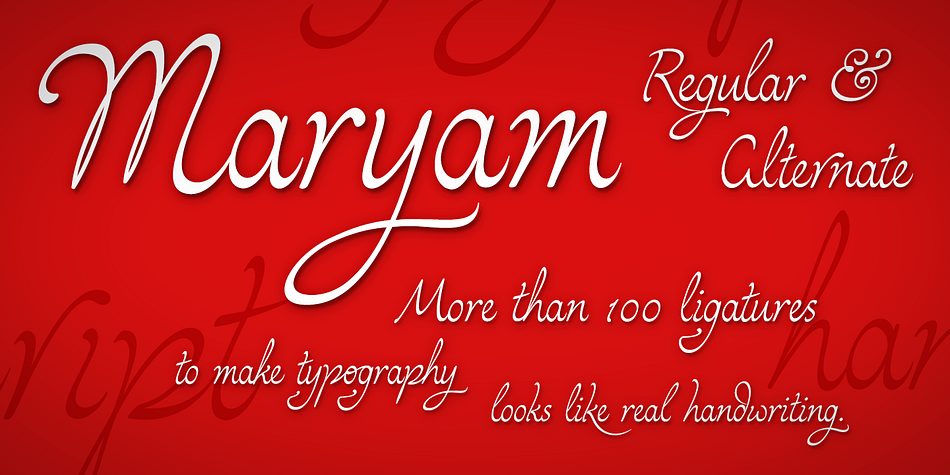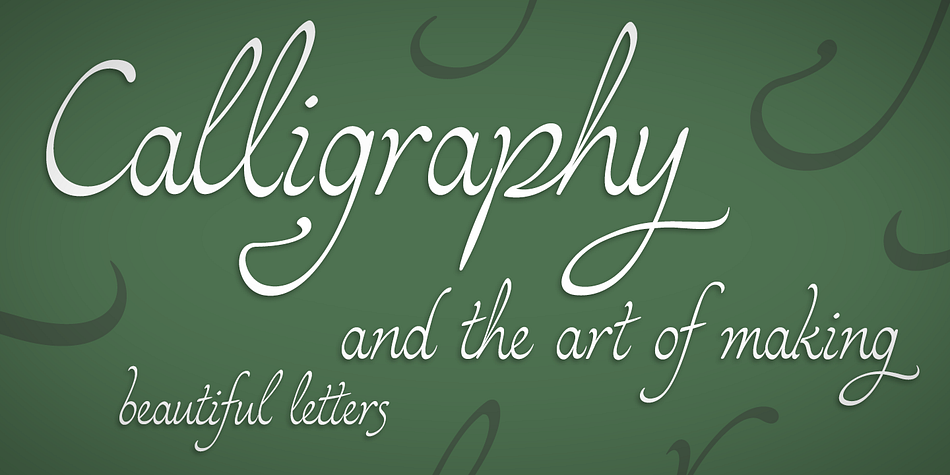
Maryam
Designed by Ricardo Esteves Gomes, Maryam is a script font family. This typeface has two styles and was published by Outras Fontes.
Maryam is a script type family designed by Ricardo Esteves. Because of moderate contrast, these fonts have ellegant and legible forms even in small x-height sizes. The family is comprised of 2 fonts: Maryam Regular and Maryam Alternate. There are more than 70 ligatures in each font, providing a lot of letterform variations that can make them look like real handwriting on a page. Useful for short texts that need a calligraphic feeling to catch the eye.